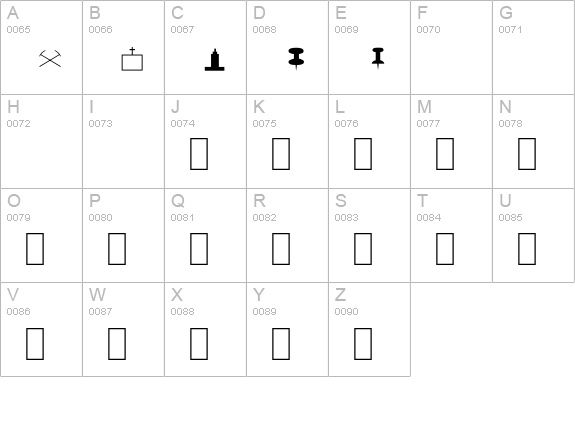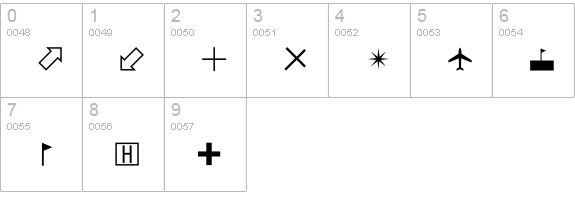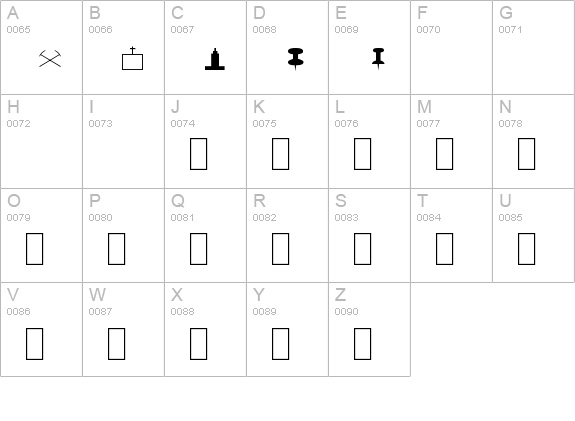
Map Symbols Font Details
Introducing the captivating and versatile Map Symbols font, a must-have for any map enthusiast or designer looking to add a touch of elegance and functionality to their projects. This remarkable font offers a wide array of meticulously designed symbols, icons, and pictograms, making it an indispensable tool for creating visually stunning maps. With its clean lines and balanced proportions, Map Symbols font effortlessly blends style and clarity, ensuring that your maps are not only visually appealing but also easy to interpret. From landmarks and buildings to roads and transportation symbols, this font covers a vast range of symbols that are essential for accurately representing geographical features. What sets Map Symbols font apart is not only its exceptional design, but also its accessibility. It is available to download for free at FontsMarket.com, making it an invaluable resource for designers, cartographers, and anyone in need of high-quality map symbols. Whether you're working on a professional project or simply exploring your creative side, this font offers endless possibilities for enhancing your maps with its extensive collection of symbols. Designed with precision and attention to detail, Map Symbols font is compatible with various design software, ensuring seamless integration into your workflow. Its user-friendly nature allows both experienced designers and beginners to easily navigate and incorporate these symbols into their projects, saving time and effort. Embrace the power of Map Symbols font and elevate your maps to new heights. With its vast array of symbols, impeccable design, and the convenience of being freely available for download at FontsMarket.com, this font is a game-changer for anyone seeking to create visually captivating and informative maps. Don't miss the opportunity to enhance your designs and make a lasting impression with Map Symbols font.